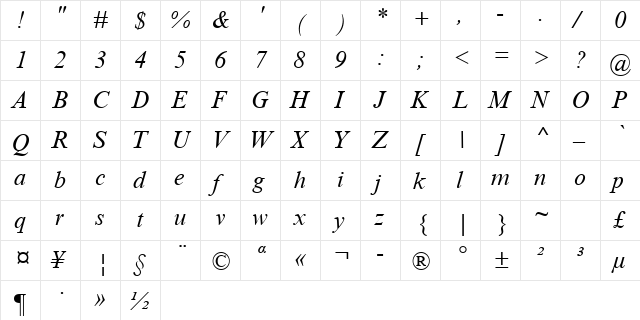
Times New Roman Greek Inclined
Design Context for Times New Roman Greek Typeface
Times New Roman Greek offers clean, dependable letterforms without strong stylistic allegiance, making it a practical choice for designers who need flexibility.